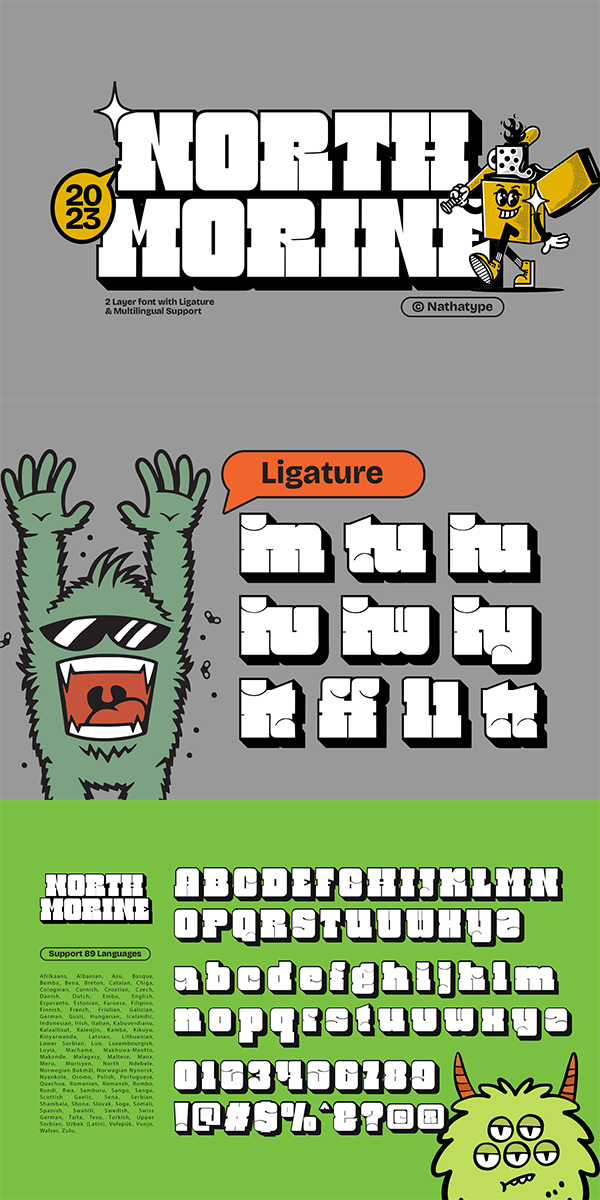
Nort Morine Font
About Nort Morine
North Morine is a powerful display font that offers both regular and shadow extrude styles, designed with a very thick weight and very low contrast. With its commanding presence and distinct design, this typeface adds a bold and striking touch to your creative projects. The very thick weight of this font demands attention and exudes strength. Each letter is solid and substantial, making a powerful statement in any composition. The thick strokes create a bold and impactful visual experience, ensuring your message stands out with confidence. With very low contrast, it emphasizes uniformity and consistency. The subtle differences in stroke width across the letters maintain a balanced and harmonious aesthetic. This design choice influences the legibility and readability, so it will be better if you use it in bigger text. North Morine offers both regular and shadow extrude styles, providing versatility and visual interest to your designs. The regular style showcases the font’s bold weight and low contrast, making it perfect for grabbing attention. The shadow extrude style adds depth and dimension, creating a three-dimensional effect that adds a touch of drama to your designs. Enjoy the available features here.
North Morine fits in headlines, logos, attention-grabbing titles, product packaging, branding materials, print media, editorial layouts, website headers, and any projects that require a hint of magic and wonder. Find out more ways to use this font by taking a look at the font preview.